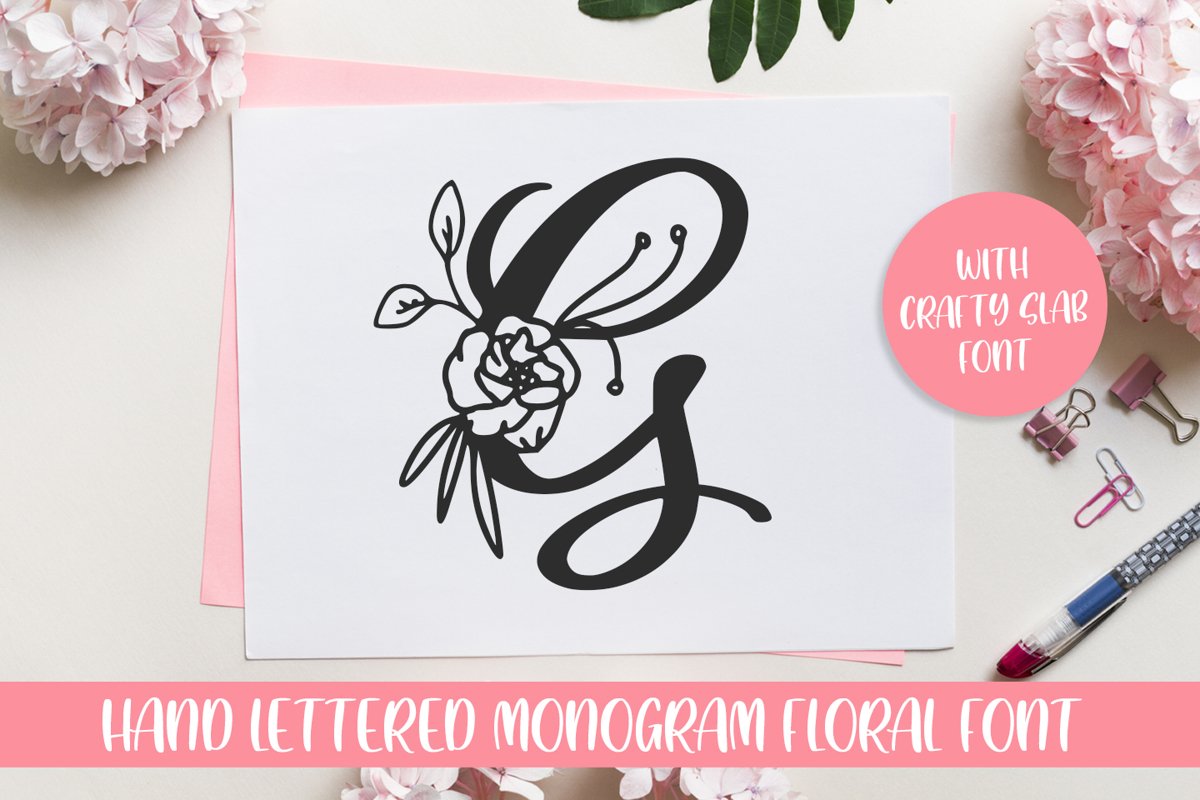
Gesya -Monogram Duo-
Gesya Slab
Gesya Monogram
introducing
GESYA FONT DUO
-beauty floral monogram & crafty slab font-
This font is designed for crafters